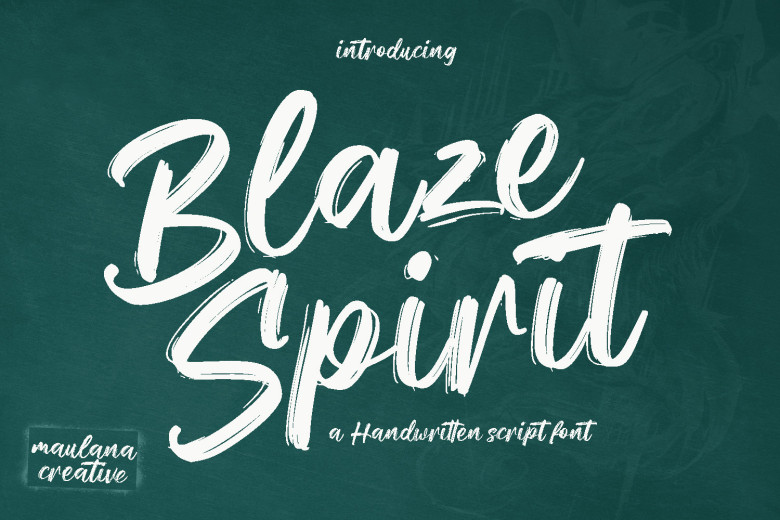
Blaze Spirit Font
Blaze Spirit font has an elegant brush script. The bold and contrasted brush strokes come together with some creative ligatures for added creativity. Furthermore, Blaze Spirit font supports over 100 languages!
Blaze Spirit font can be used in logos, social media posts, movie titles and book titles, short texts as well as long texts, making it an excellent secondary font choice to accompany sans-serif or serif fonts for creating stunning works of art. Let Blaze Spirit help you realize stunning works!
Blaze Spirit Brush Script Font